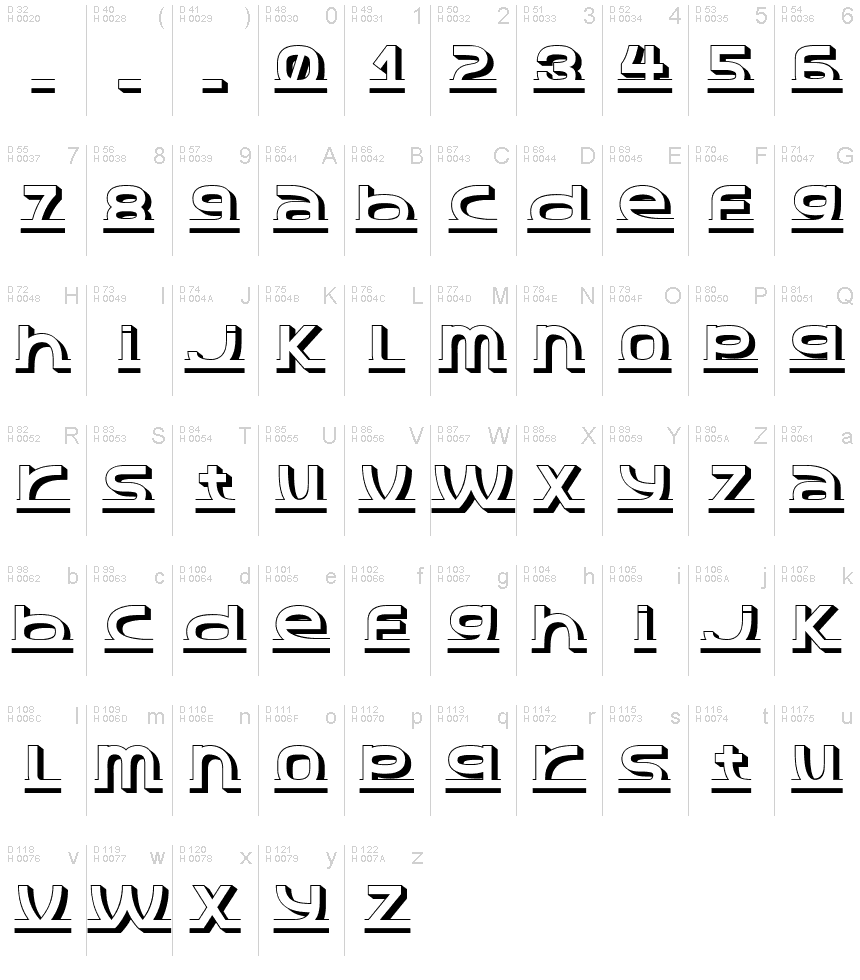
Unterschrift 3D Regular
Introducing Unterschrift 3D, a wide display font designed by Vladimir Nikolic. This versatile 3D font is perfect for creating eye-catching logos, posters and banners. Its unique design will make your project stand out!
"Unterschrift" comes in Regular, 3D and 3D Filled variant!